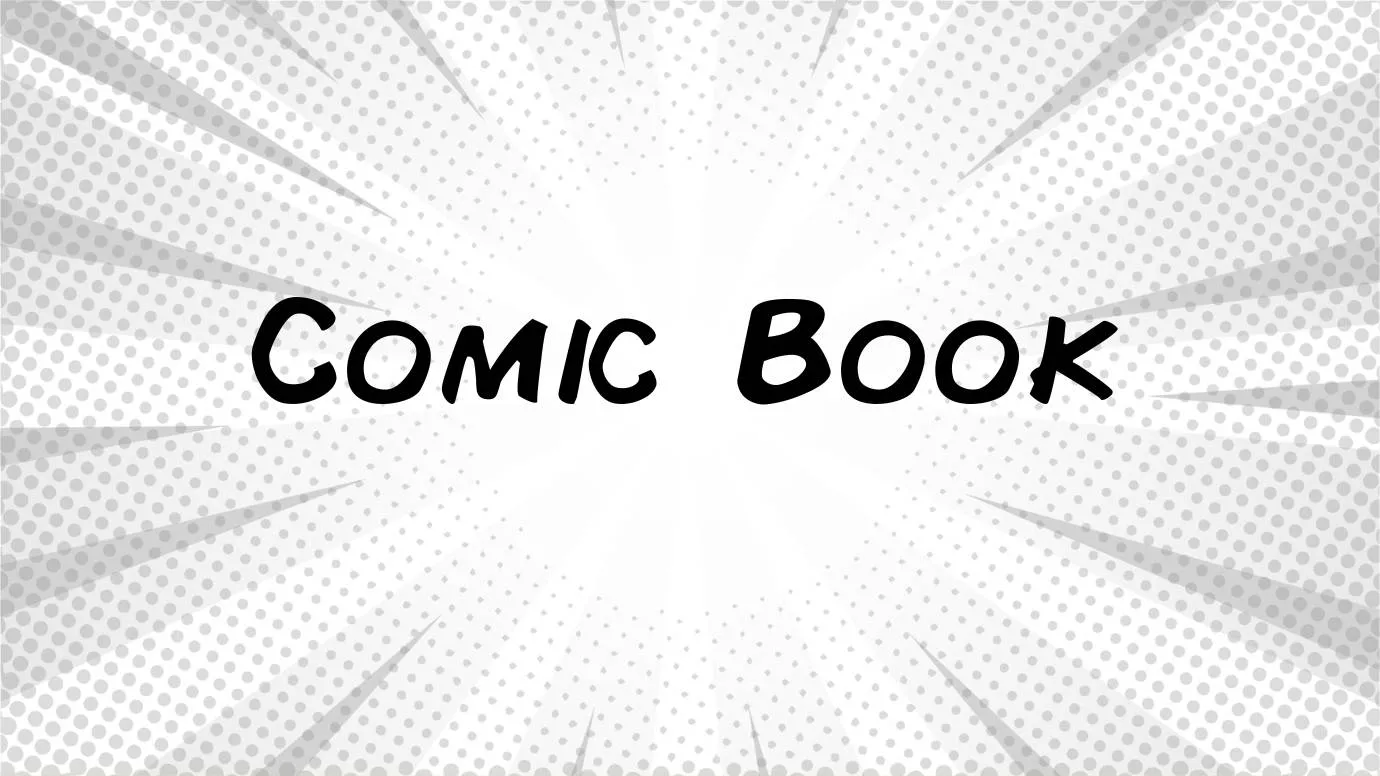
Comic Book Font Family lies in the classification of the fancy family of fonts. This awesome typeface was designed and published by Pixel Sagas. This typography has many advanced features.
This fascinating typeface contains a total of 04 advanced and stylish styles. The styles of this comic fancy typography are regular, italic, bold, and bold italic. If we check in terms of styles then heavy-weight gamer font is alternative to this typography.
| Name | Comic Book Font |
| Type | Fancy |
| Designer | Pixel Sagas |